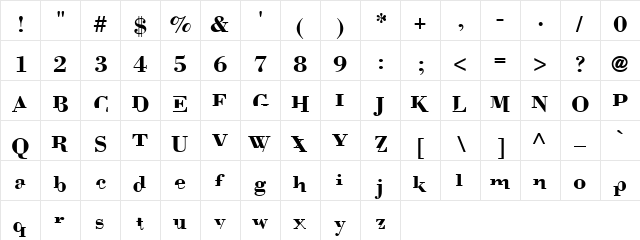
Kishint Mild Regular
Design Context for Kishint Mild Typeface
Kishint Mild is a composed and adaptable typeface that performs quietly and consistently across a wide range of design contexts.
Pro Tip: Use Kishint Mild in both headline and body roles to test its range before committing to a single application.